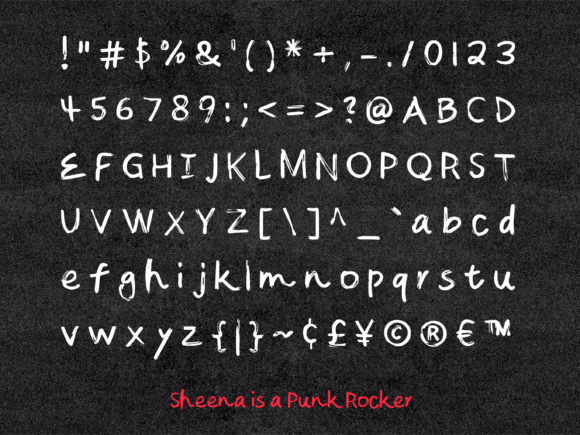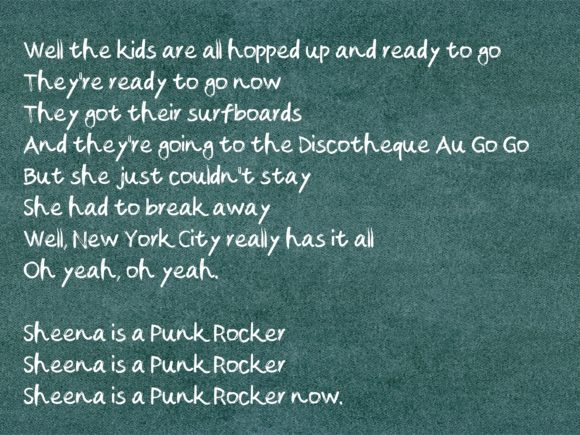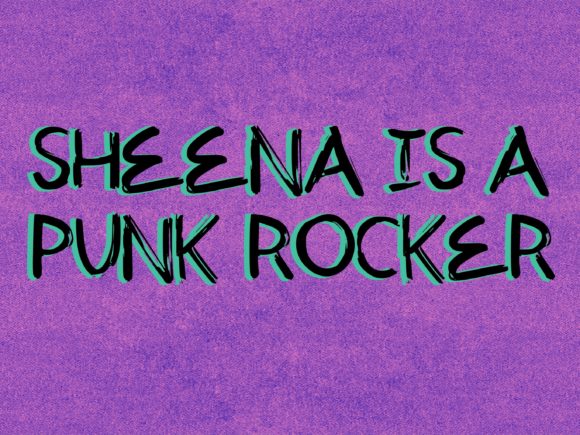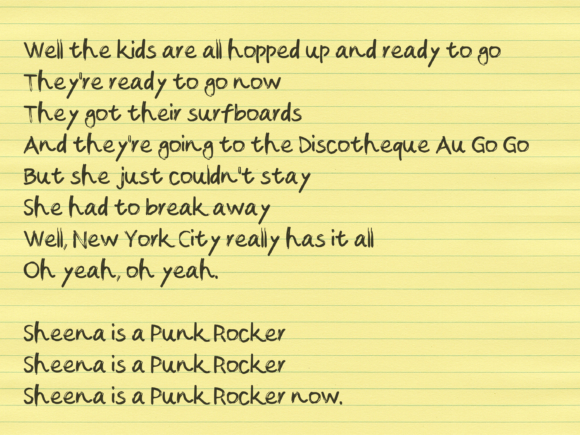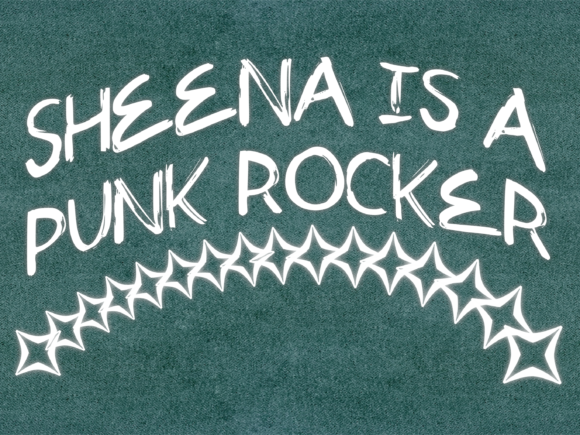
Introduction to Sheena is a Punk Rocker Font
Sheena is a Punk Rocker is a handwritten brush pen font with 101 glyphs.
It is perfect for product packaging, branding project, magazine covers, social media, wedding, or just used to express words above the background .
Key Features of Sheena is a Punk Rocker Font